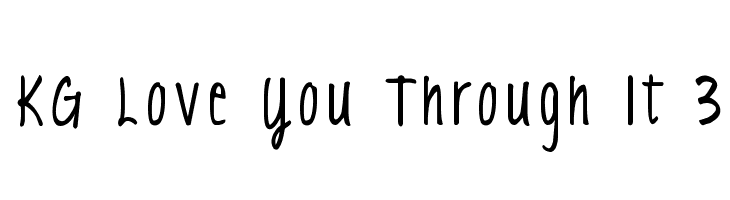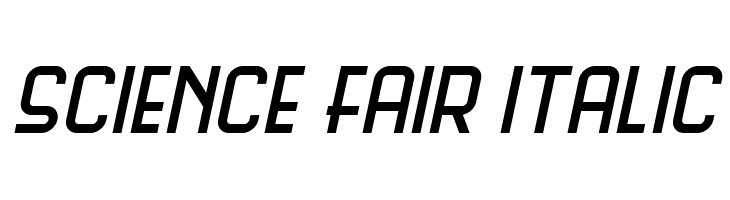
A playful, casual handwritten font with smooth curves and a friendly appearance.
A bold, futuristic font with geometric and angular design elements.
A bold, hand-drawn font with brush-like strokes and irregular edges.
A decorative font inspired by ancient glyphs, featuring intricate and bold designs.
A gothic-inspired serif font with sharp, angular features.
A bold, modern font with geometric lines and a strong presence.
A fluid and elegant script font with moderate stroke contrast.
A bold, expanded, and italic geometric font with a futuristic style.